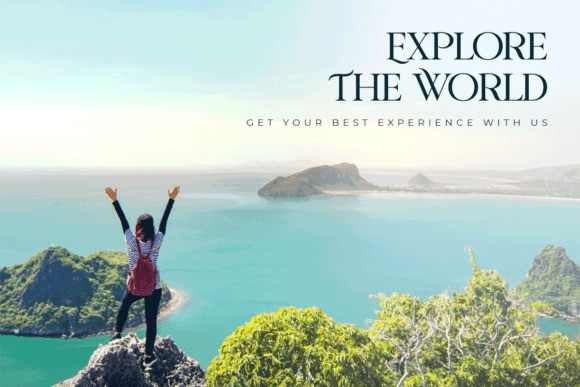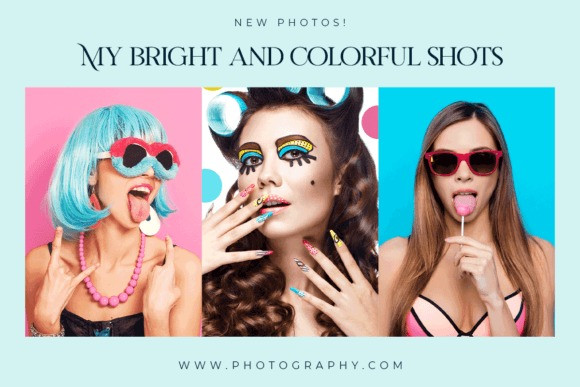
Riverflows Font
Riverflows is an elegant and luxurious serif font, perfect for branding, logos, invitations, long text, and more. Add it to any of your creative projects, and watch it bring your designs to life with their impeccable style and shape. This font is PUA encoded which means you can access all of the amazing glyphs and ligatures with ease!